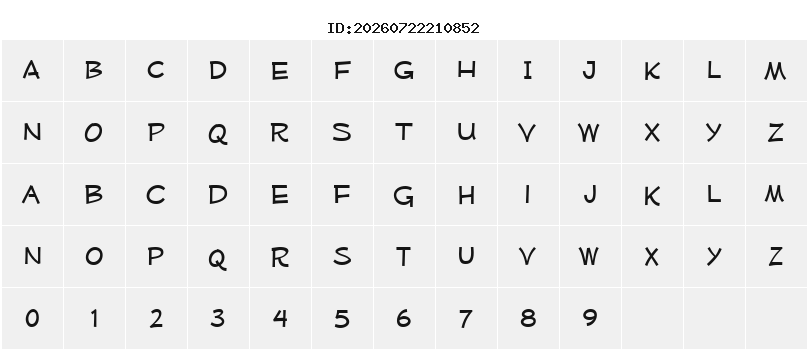
Mufferaw Free Preview
• Font Name: Mufferaw Free
• Font ID: RayLarabie: Mufferaw Free: 2004
• Full Font Name: Mufferaw Free
• Version: Version 2.100 2004
• PostScript Name: MufferawFree
• Designer: Ray Larabie
• Manufacturer: Ray Larabie
About Mufferaw Free.ttf
Mufferaw Free.ttf is a modern, elegant sans-serif font designed for ultimate readability and visual harmony. Perfect for branding, headlines, web design, and print materials.